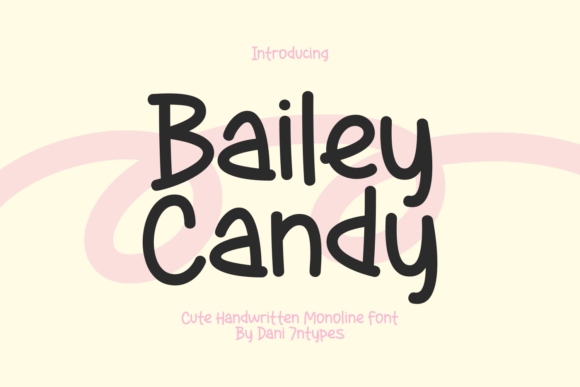
Bailey Candy Font: A Sweet and Friendly Handwritten Font
Are you looking for a font that can add a touch of sweetness and friendliness to your designs? Look no further than the Bailey Candy Font. This beautiful handwritten font is perfect for a wide range of design projects, from branding and packaging to social media graphics and more.
What is Bailey Candy Font?
Bailey Candy is a sweet and friendly handwritten font that is designed to bring a touch of warmth and personality to your designs. Its natural and unique style makes it incredibly fitting to a large pool of designs, and the only limit is your imagination!
Key Features of Bailey Candy Font
- Handwritten style: Bailey Candy Font has a beautiful handwritten style that gives it a personal and friendly touch.
- Natural and unique: The font’s natural and unique style makes it perfect for a wide range of design projects.
- Highly versatile: Bailey Candy Font can be used for everything from branding and packaging to social media graphics and more.
- Easily readable: The font is highly legible, making it perfect for use in both digital and print designs.
Design Uses for Bailey Candy Font
Bailey Candy Font is a highly versatile font that can be used for a wide range of design projects. Here are some ideas to get you started:
- Branding and packaging: Use Bailey Candy Font to create custom branding and packaging that stands out from the crowd.
- Social media graphics: Create eye-catching social media graphics with Bailey Candy Font that will help you connect with your audience.
- Invitations and events: Use Bailey Candy Font to create custom invitations and event materials that are both sweet and sophisticated.
- Digital and print designs: Bailey Candy Font is highly legible, making it perfect for use in both digital and print designs.
Pairing Bailey Candy Font with Other Fonts
Bailey Candy Font can be paired with a variety of other fonts to create a unique and visually appealing design. Here are some font pairing ideas to try:
- Serif fonts: Pair Bailey Candy Font with a serif font like Times New Roman or Georgia for a classic and elegant look.
- Sans-serif fonts: Pair Bailey Candy Font with a sans-serif font like Arial or Helvetica for a modern and clean look.
- Script fonts: Pair Bailey Candy Font with another script font like Pacifico or Great Vibes for a beautiful and elegant look.
Tips and Tricks for Using Bailey Candy Font
Here are some tips and tricks for getting the most out of Bailey Candy Font:
- Use it sparingly: Bailey Candy Font is a beautiful font, but it can be overwhelming if used too much. Use it sparingly to create a focal point in your design.
- Experiment with colors: Bailey Candy Font looks great in a variety of colors, so don’t be afraid to experiment and find the perfect color for your design.
- Pay attention to spacing: Make sure to pay attention to the spacing between letters and words to ensure that your design looks clean and visually appealing.
Bailey Candy Font is a sweet and friendly handwritten font that is perfect for a wide range of design projects. Its natural and unique style makes it incredibly fitting to a large pool of designs, and the only limit is your imagination! With its highly legible and versatile design, Bailey Candy Font is sure to become a favorite in your design toolkit.